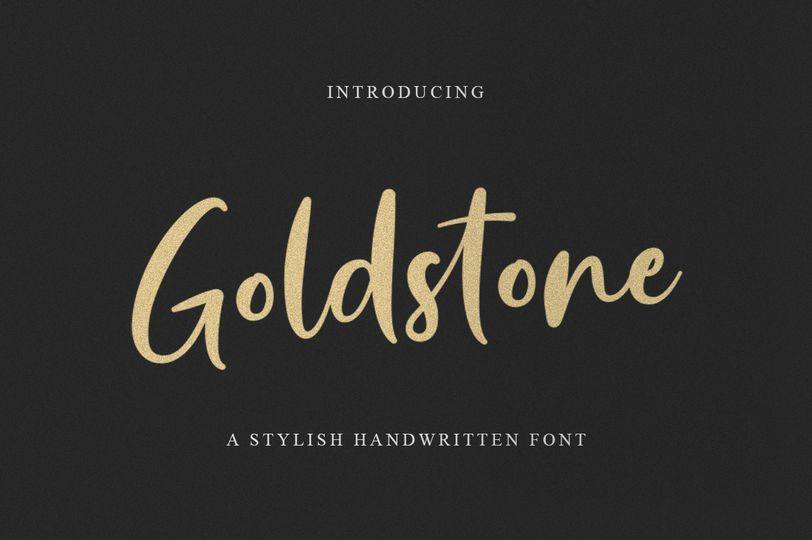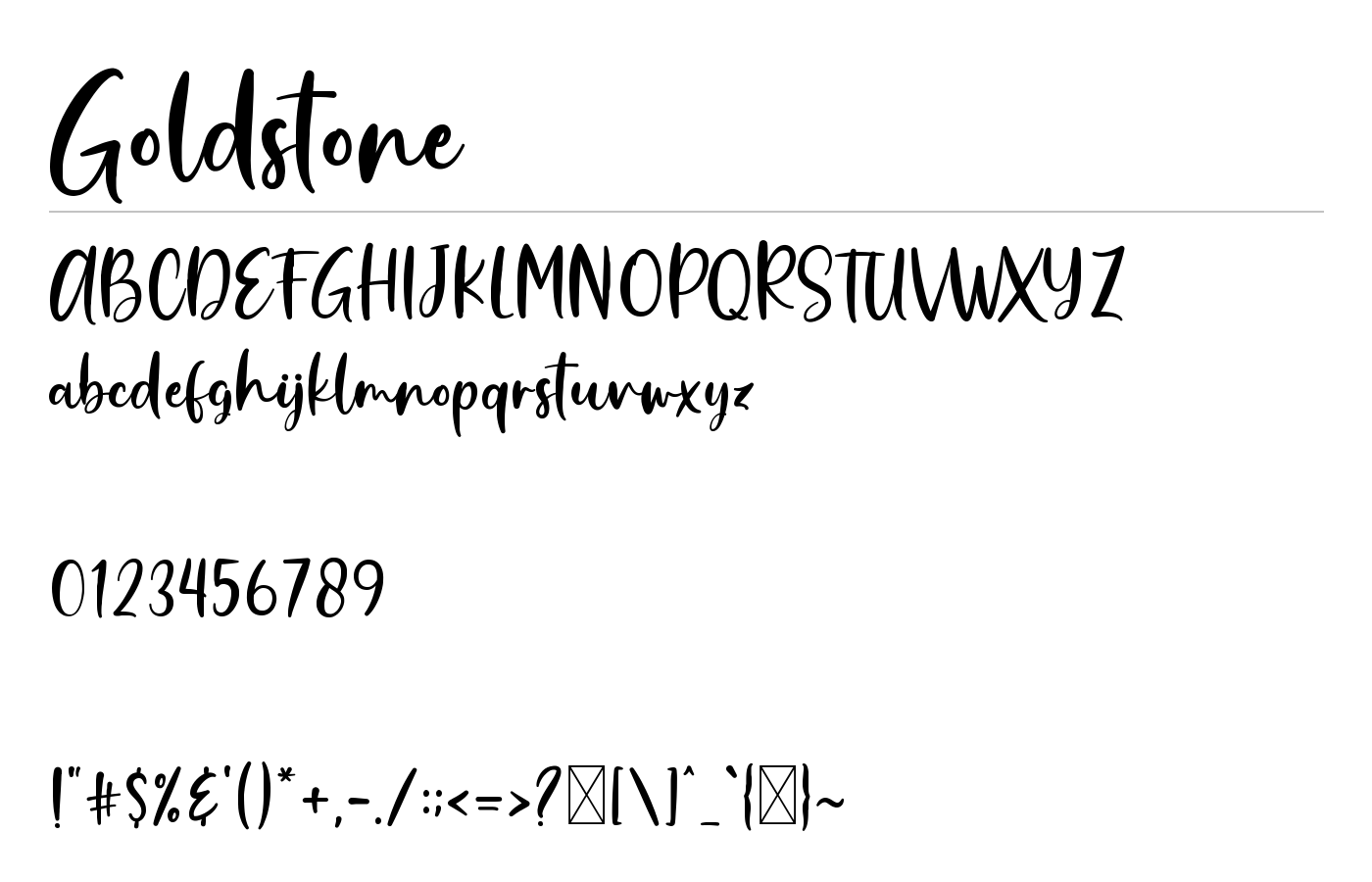
Goldstone is a casual, handwritten script font characterized by its smooth, flowing strokes and natural, friendly appearance. It features a tall x-height with slender, slightly irregular letterforms that convey a personal, approachable feel, making it ideal for branding, invitations, and creative projects seeking a warm, informal touch. This font works well where a charming, handwritten style is desired to evoke friendliness and uniqueness.
Goldstone Font
About Goldstone Font
| Font family | Goldstone Font |
| Release date | 2020-03-09 |
| Designer | Teguh Subiyantoro |